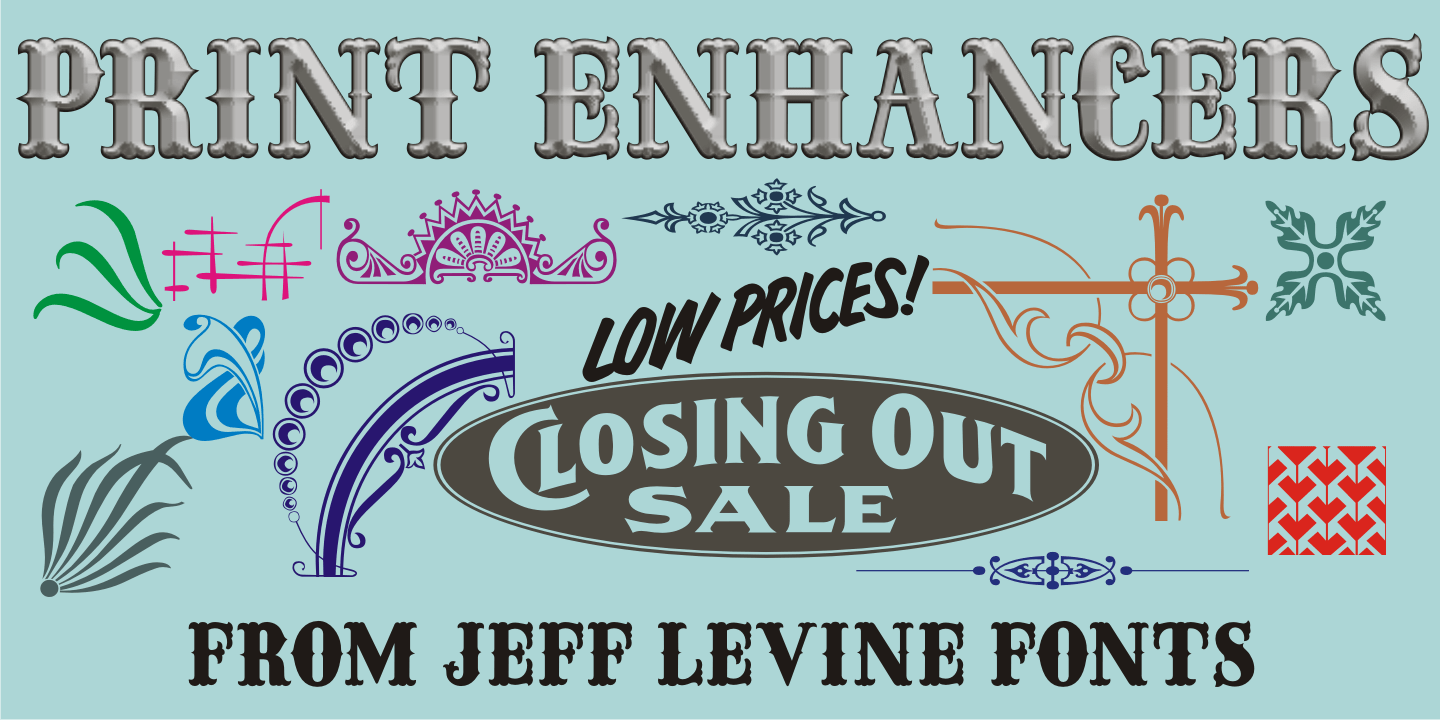
Print Enhancers
Decorative border, spacer and ornamental elements comprise the bulk of Print Enhancers JNL, with a few extra goodies included to round out the collection.